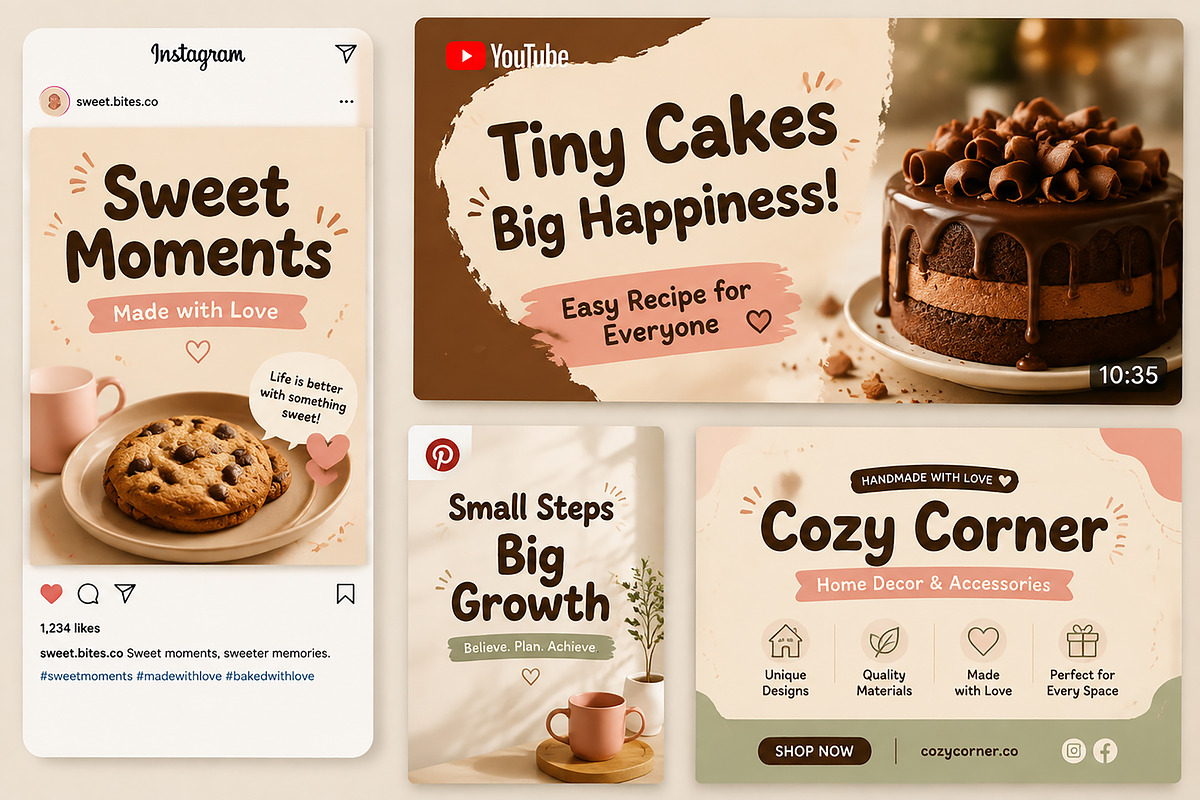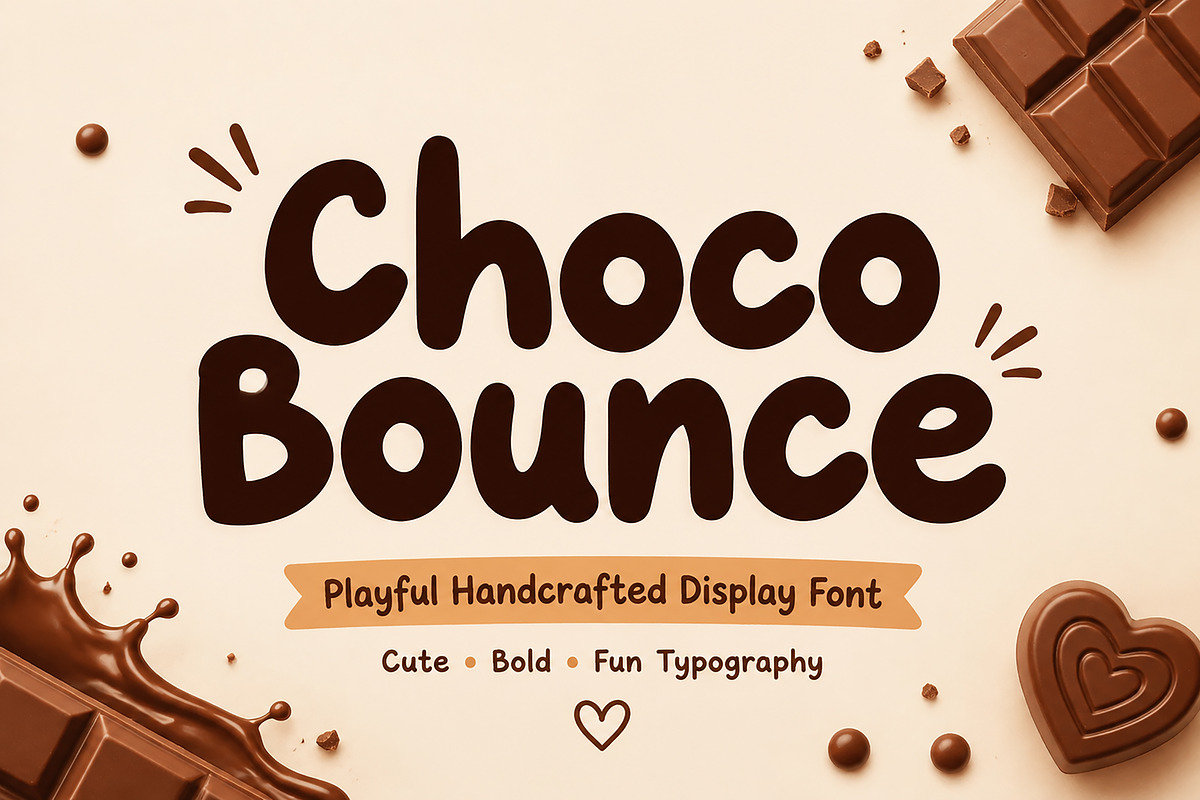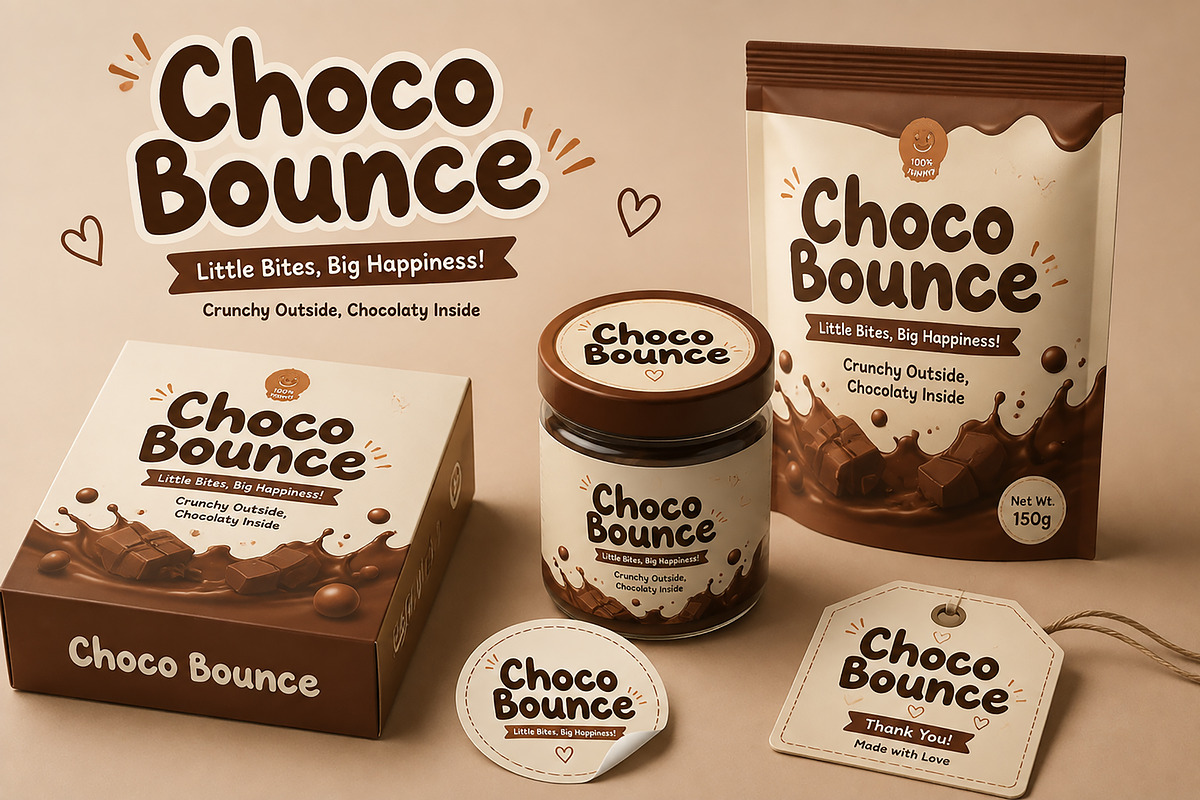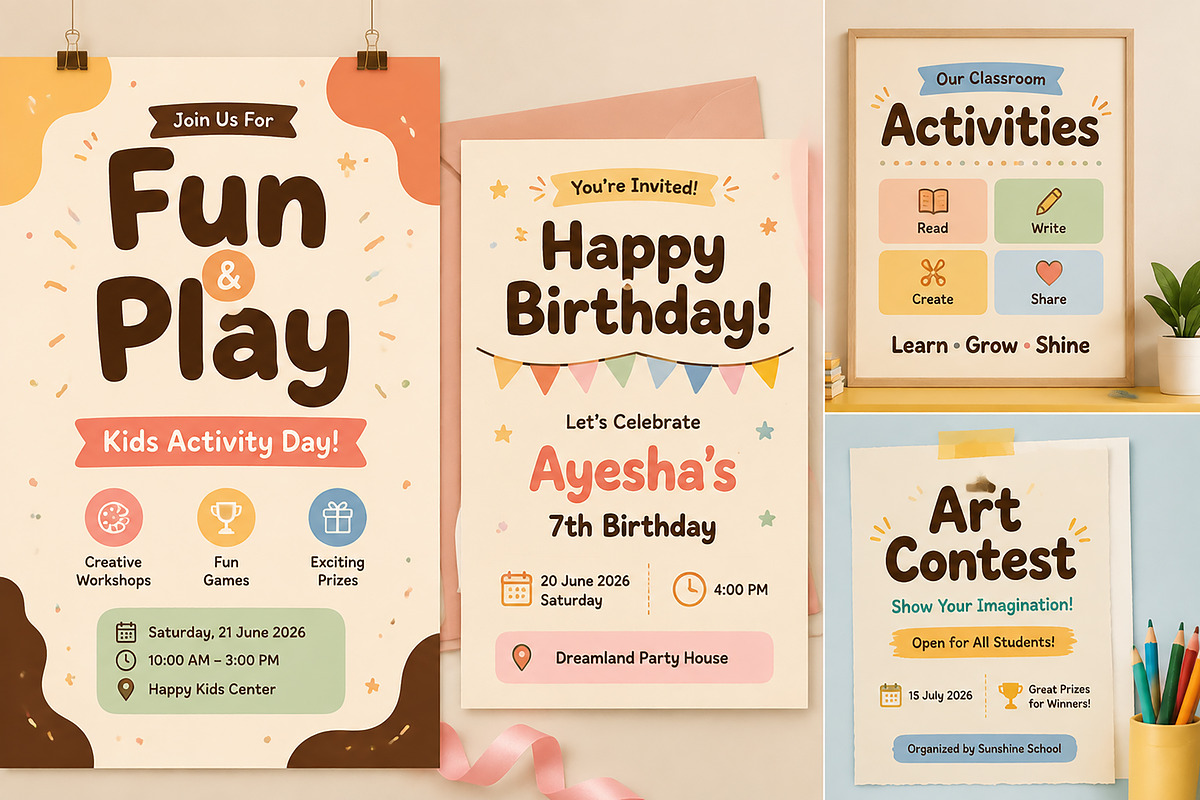
Choco Bounce
Choco Bounce – Playful Handcrafted Display Font
Choco Bounce is a playful handcrafted display font with bold rounded shapes and a sweet personality. Perfect for kids branding, food packaging, logos, invitations, posters, social media graphics, and creative commercial designs. Includes OTF file format and works on Windows.
Bring a sweet, cheerful, and friendly personality to your designs with Choco Bounce, a playful handcrafted display font designed to make your projects stand out.
With its soft rounded shapes, bold characters, and fun handmade feeling, Choco Bounce is perfect for creating eye-catching designs that feel warm, creative, and memorable.
This font is ideal for kids branding, food packaging, bakery designs, birthday invitations, social media graphics, posters, logos, stickers, merchandise, and creative advertising projects.
Whether you are designing a cute brand identity or adding a playful touch to your artwork, Choco Bounce gives your designs a unique and lovable character.
✔ Playful handcrafted display style
✔ Bold rounded letter shapes
✔ Fun and friendly typography style
• Kids Logo Design
• Food & Snack Branding
• Bakery Packaging
• Birthday Invitations
• Social Media Posts
• YouTube Thumbnail Designs
• Posters & Flyers
• Stickers
• Merchandise
• Creative Branding Projects
Create fun, memorable, and delicious-looking designs with Choco Bounce — a font made to bring happiness and creativity to every project.